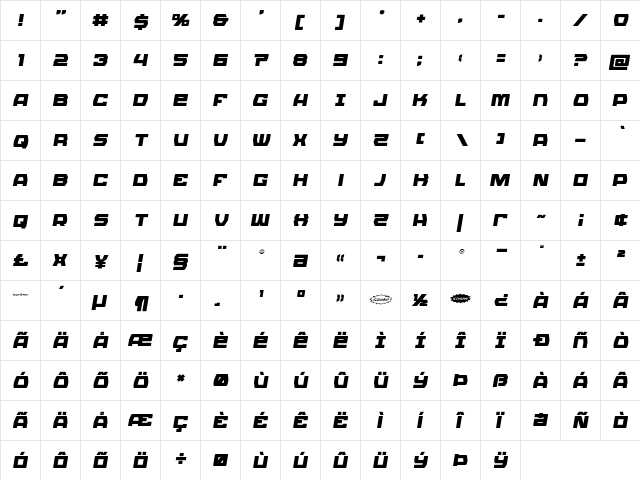
Olympic Carrier Semi-Italic Semi-Italic
Design Context for Olympic Carrier Semi-Italic Typeface
Olympic Carrier Semi-Italic is a composed and adaptable typeface that performs quietly and consistently across a wide range of design contexts. Its italic angle brings a sense of urgency and motion to the letterforms.
Pro Tip: Try Olympic Carrier Semi-Italic for annotation and caption copy alongside an upright companion — the contrast in angle creates a dynamic but ordered typographic system.